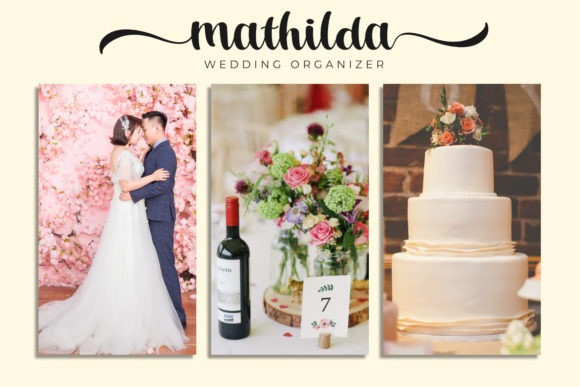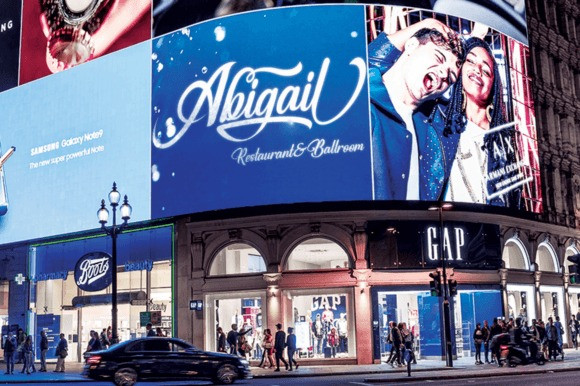
Abigail Font
Introducing Abigail Calligraphy Font, is a neat and beautiful handwritten font described by an elegant touch, perfect for your favorite projects such as wedding invitations, apparel designs, Social Media, and others. Fall in love with its incredibly distinct and timeless style, and use it to create spectacular designs!